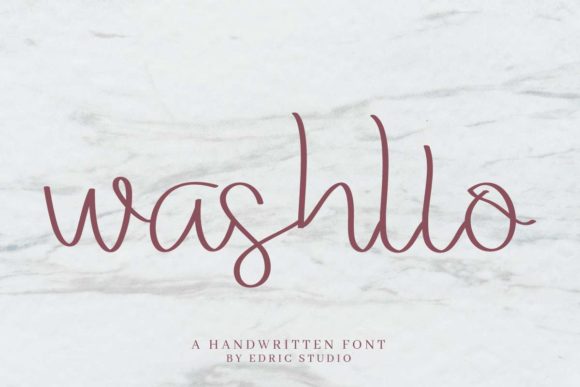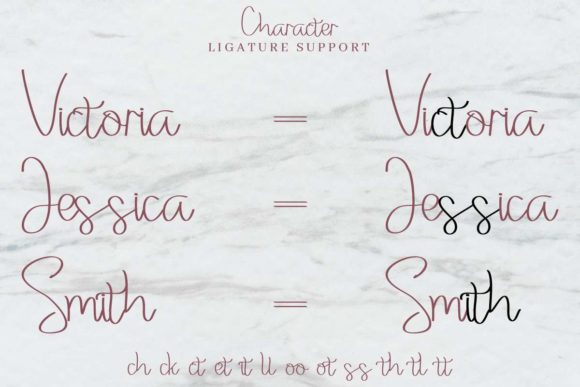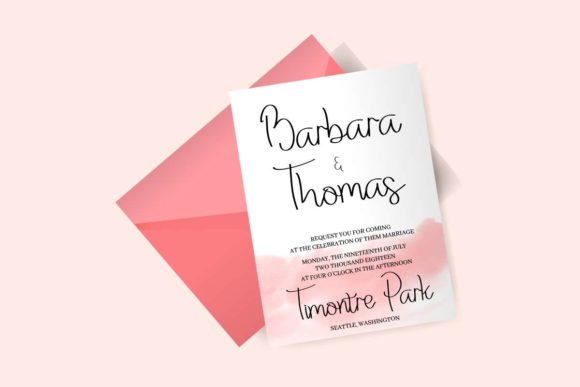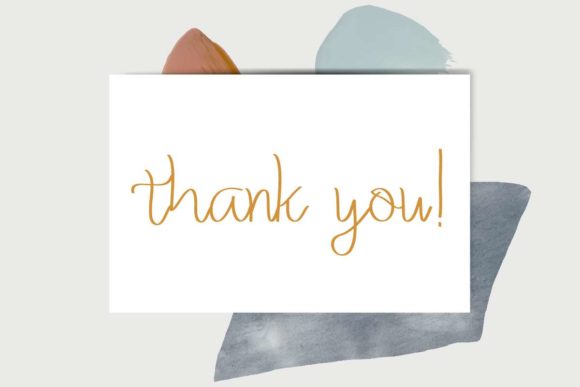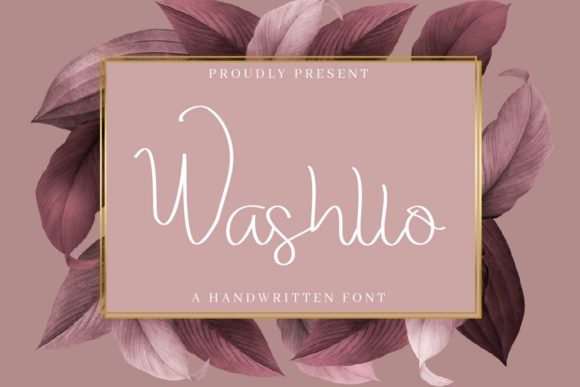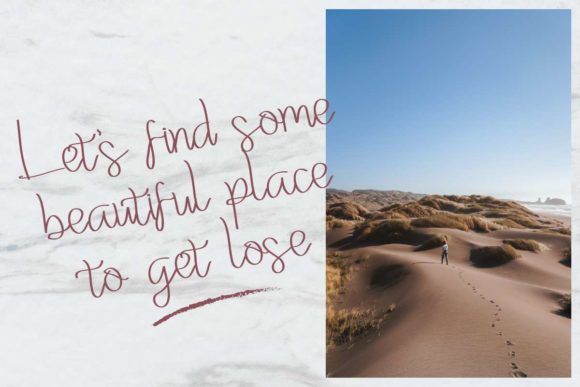
Washllo Font
About Washllo Font
Washllo embodies quirkiness and authenticity. This enchanting handwritten font will turn any creative idea into a true standout. Whether you’re looking for fonts for Instagram or calligraphy scripts for DIY projects, Washllo will turn any creative idea into a true piece of art!